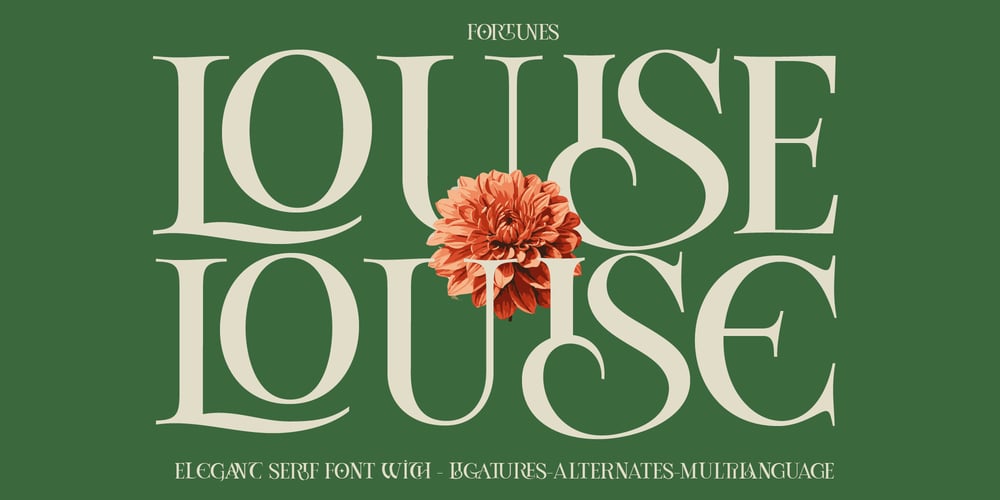
Fd Louise Font Family was designed by Ramandhani Nugraha and published by Fortunes Co. Fd Louise contains 1 styles and family package options. Louise is a serif elegant typeface exudes sophistication and timeless charm. Its refined letterforms feature delicate, graceful serifs, adding a touch of luxury and class. Perfect for formal occasions, high-end branding, or editorial designs, it combines readability with aesthetic appeal. Balanced proportions, thin strokes, and subtle curves give it a regal presence, making it a favorite for evoking elegance and tradition